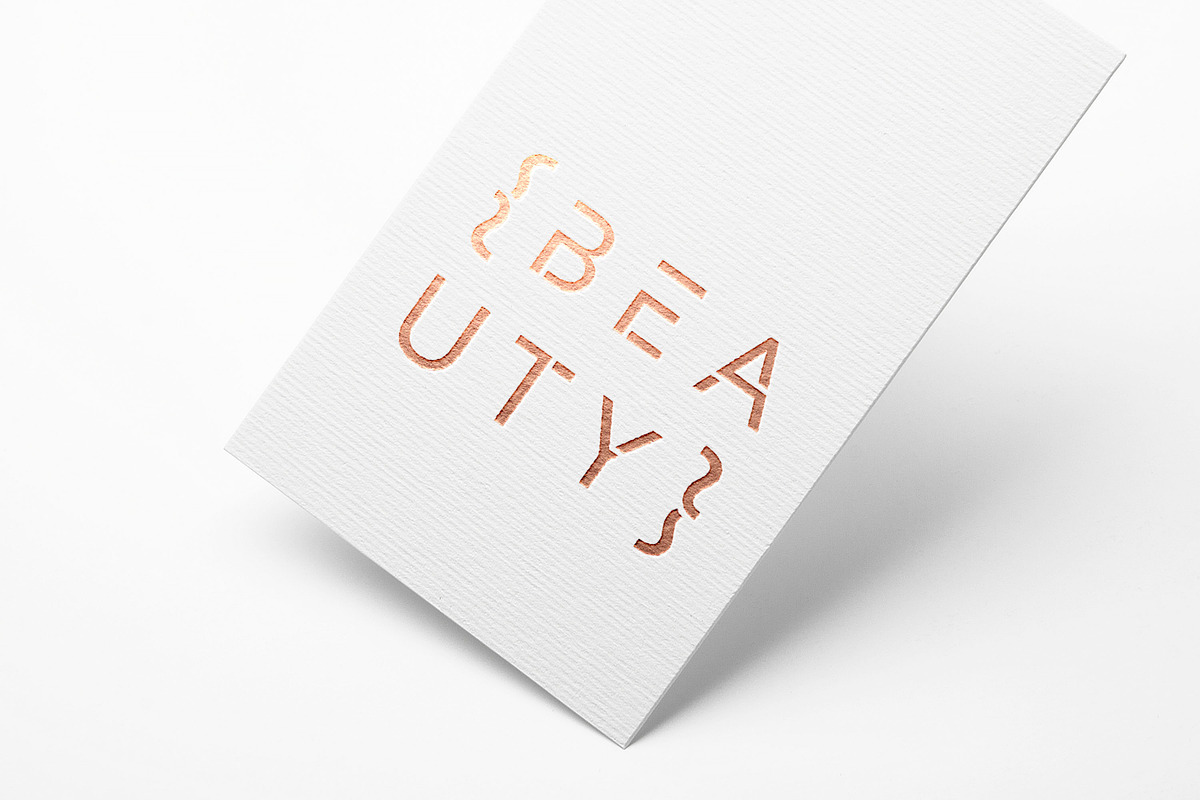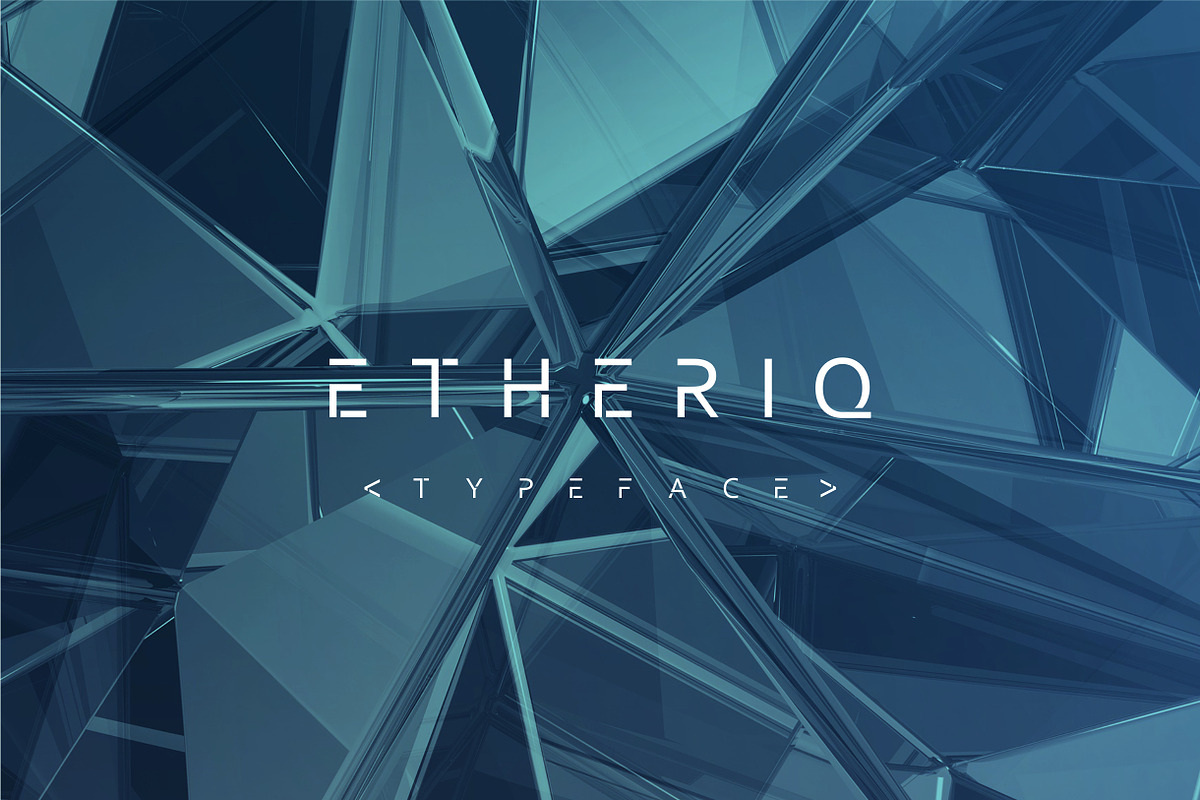
Etheriq Typeface
Etheriq Typeface by AnimusStudio is a font selected for branding, posters, packaging, typography.
Why Etheriq Typeface is worth a look
Etheriq Typeface by AnimusStudio fits naturally into Branding, posters, packaging, typography.